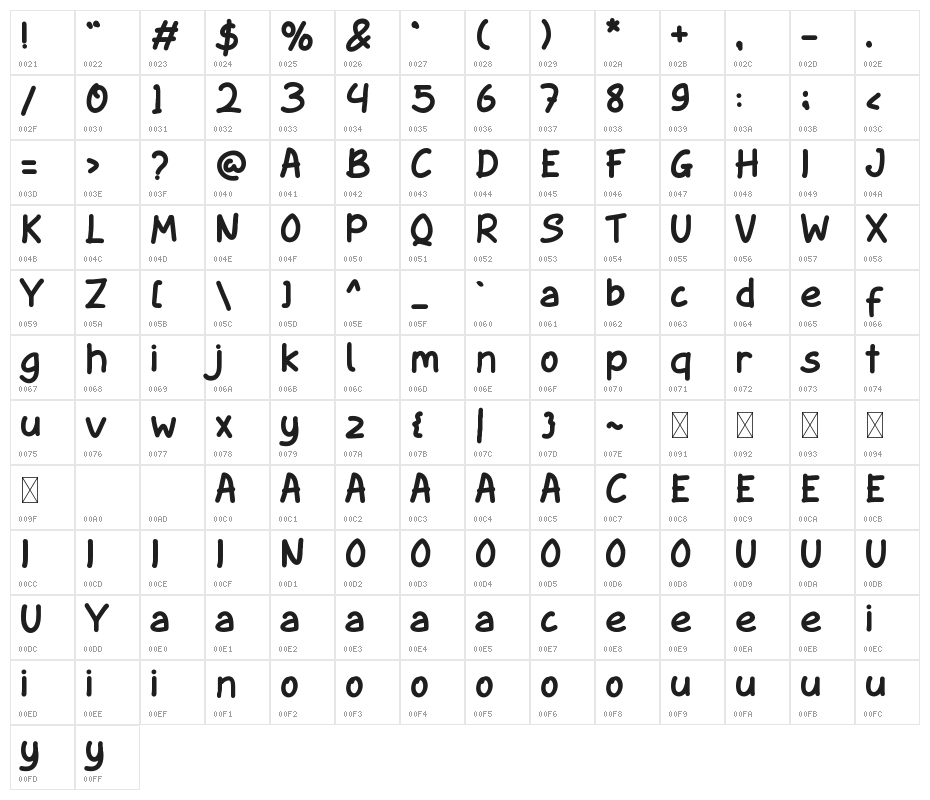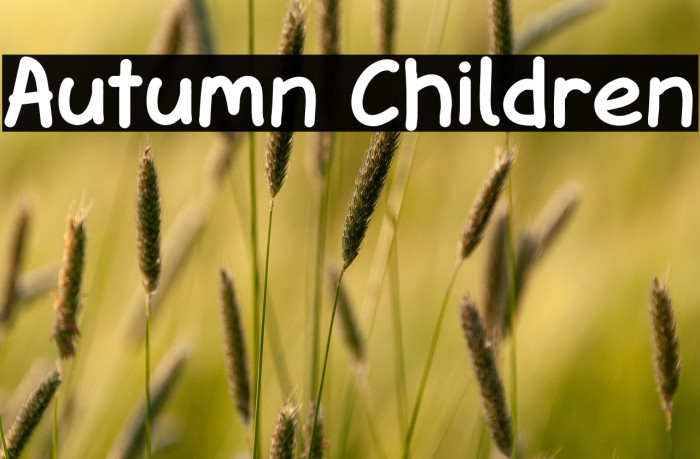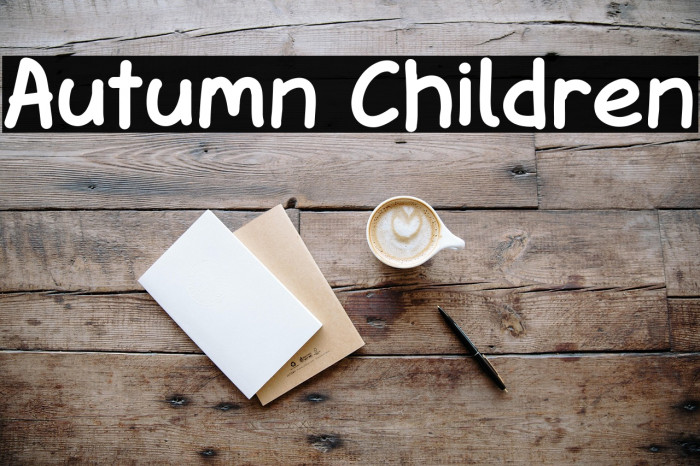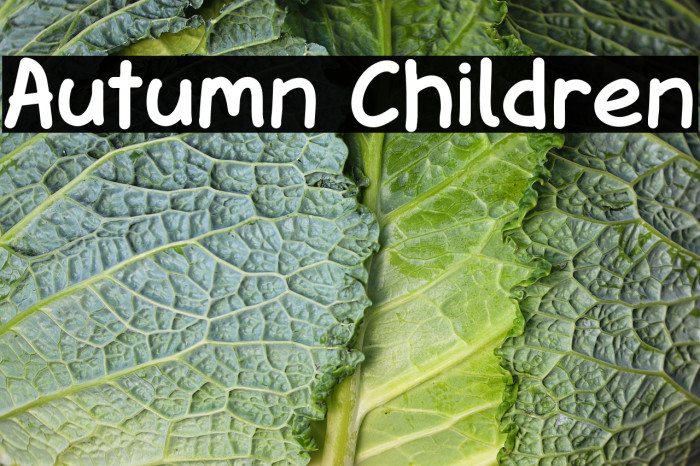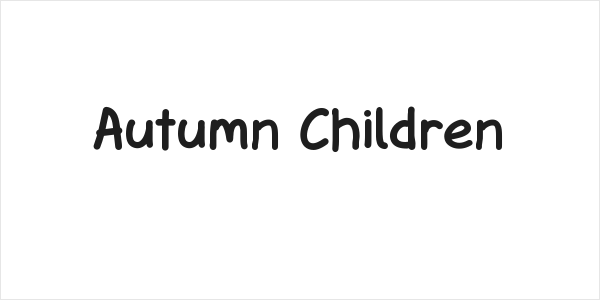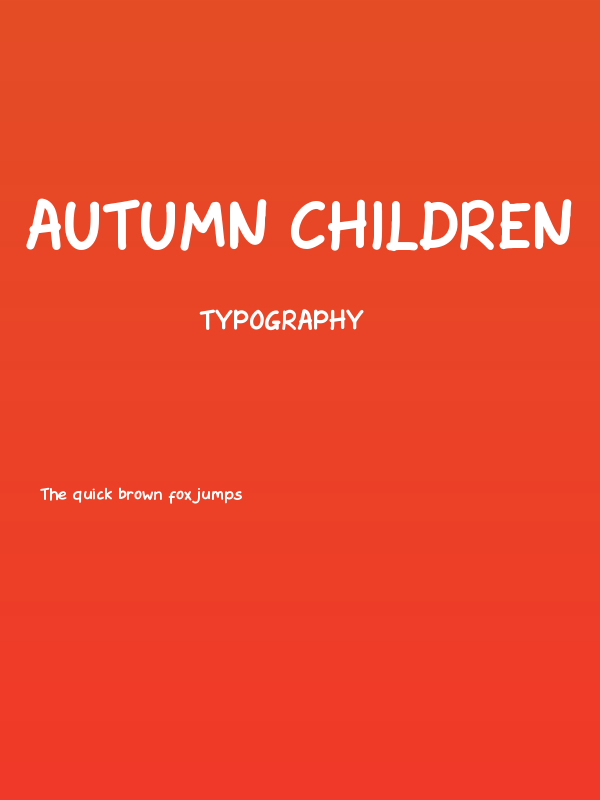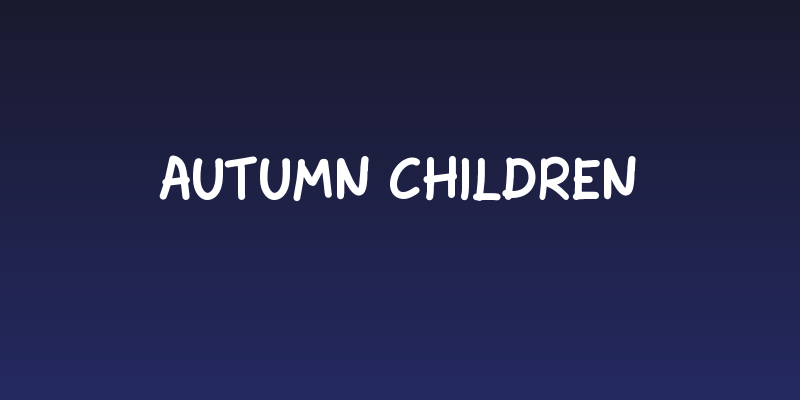
Autumn Children Font
Autumn Children Description
A playful, rounded handwritten typeface with consistent stroke width and informal, childlike character shapes. The letters are slightly irregular, giving a friendly and approachable feel.
| Overall Style | Playful, Informal, Friendly |
| Use Case | ChildrenΓ’β¬β’s content, Informal headlines, Posters, Invitations |
| Proposed Projects | ChildrenΓ’β¬β’s books, educational materials, posters, greeting cards, playful branding. |